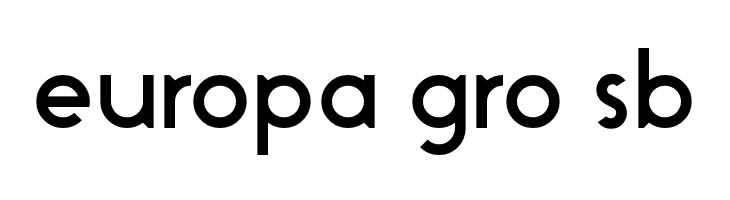
( Fonts by skomii - Personal-use only. For commercial use please contact owner. ) A modern, geometric sans-serif font with clean lines and balanced proportions. Download 2220 Downloads@WebFont